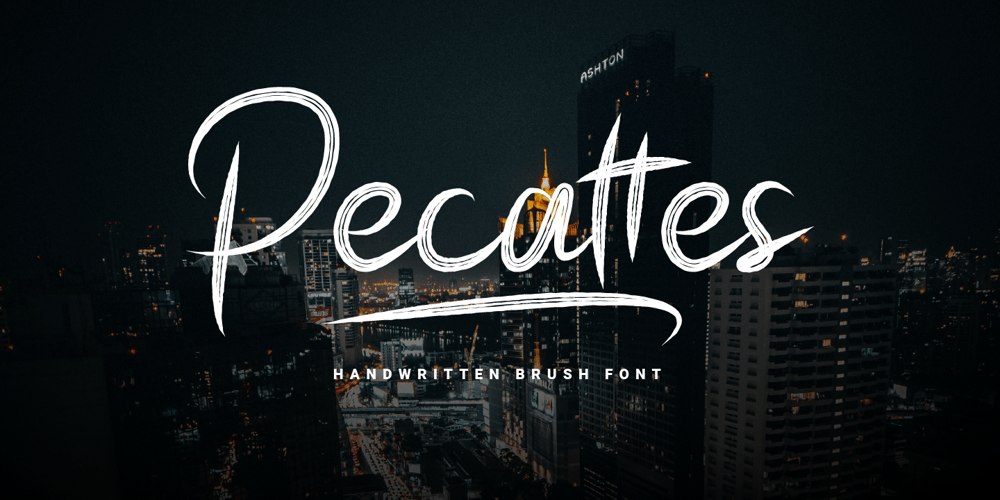
Pecattes Font Family was designed by Prio Nurokhim Aji and published by Prioritype. Pecattes contains 1 styles and family package options. A brush font with a script theme that can make your project maximized. Moreover, it is equipped with several attractive alternatives and swashes. Can be used in various print or digital media such as product packaging, content display, social media promotion, broadcasts and many more.Features:-Uppercase-Lowercase-Numeral-Punctuation-Multilingual-Alternate-SwashDon’t hesitate to support now!